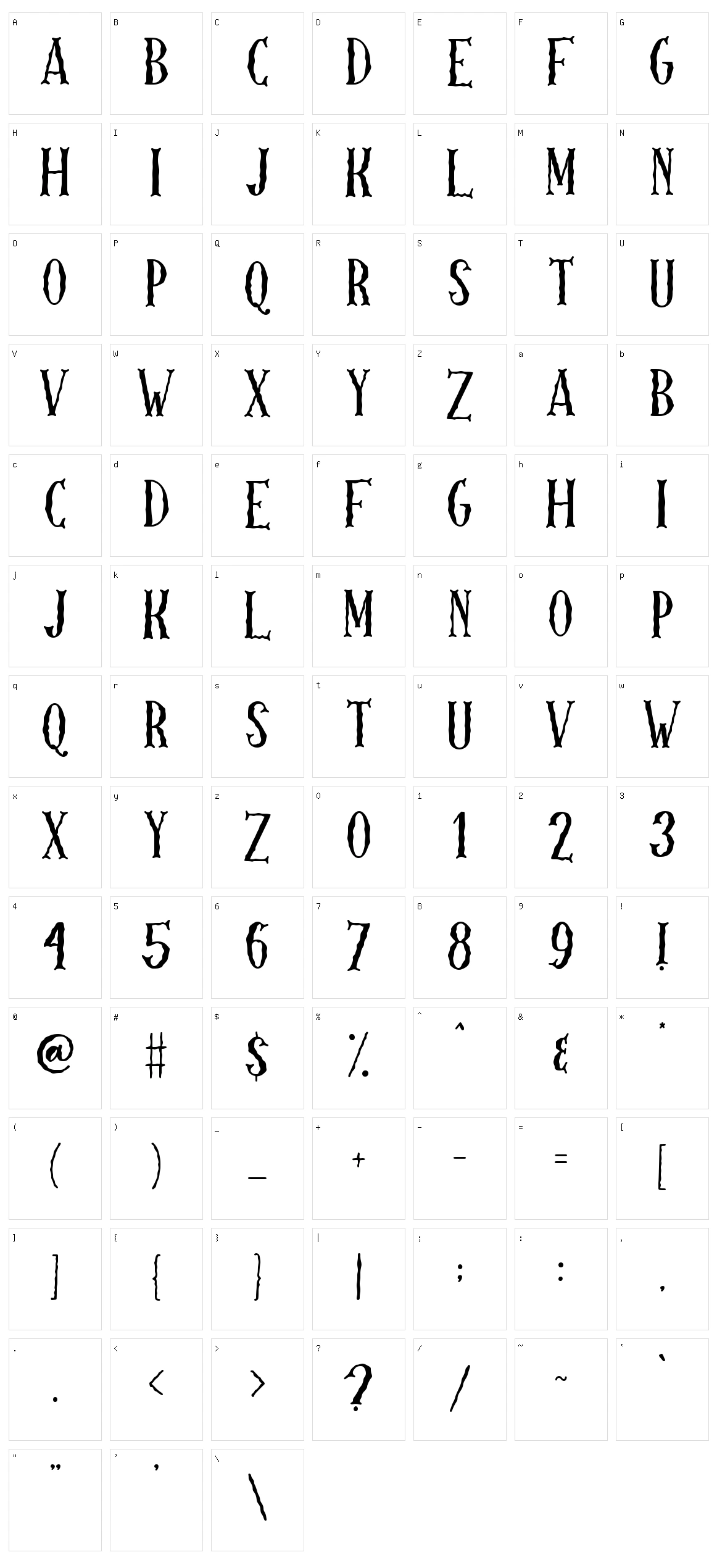
The free font Skellington Hollow is carefully designed by Dm Letter Studio - Dimas Prasetyo, showcasing a thoughtful balance of creativity and usability and falls under the Halloween font style. When you download the ZIP file, it contains only 239.57 KB of font files, making it lightweight and quick to download. Please review the license details below to understand permitted usage and distribution rights. If license information is not available, we recommend using this font for personal projects only or contacting the author directly for commercial usage permissions.